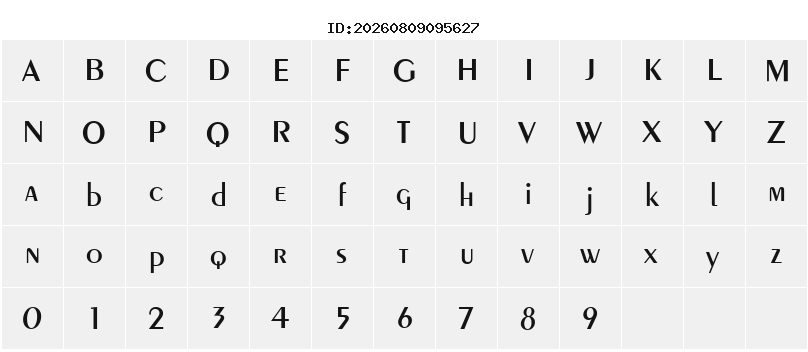
• Font Name: Peoria
• Full Font Name: Peoria-Regular
• Designer: SoftMaker Software GmbH
• Manufacturer: SoftMaker Software GmbH
About Peoria.ttf
Peoria.ttf is a modern, elegant sans-serif font designed for ultimate readability and visual harmony. Perfect for branding, headlines, web design, and print materials.